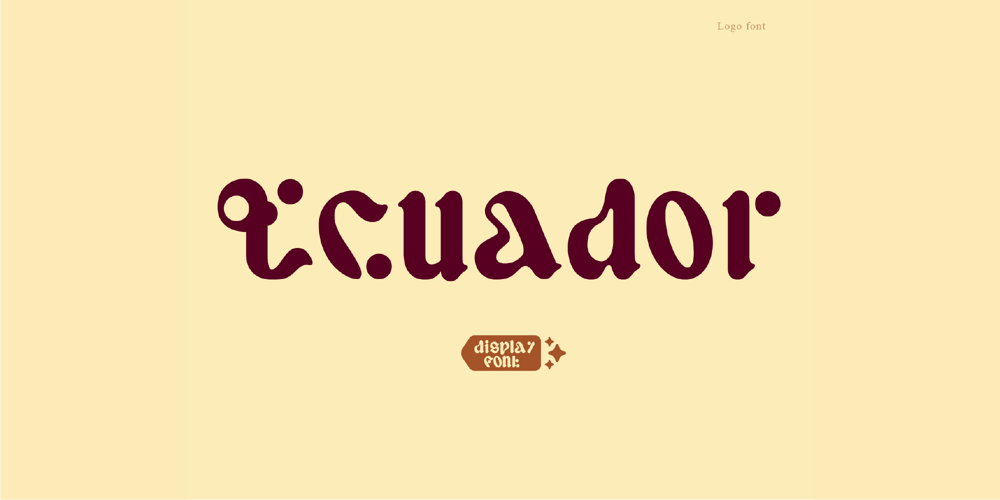
Ecuador Font Family was designed by Wahyu Aji Prasetyo and published by WAP Type. Ecuador contains 1 styles and family package options. This font has a unique character and can be used for your logos, business cards and other projects for a unique vintage look.